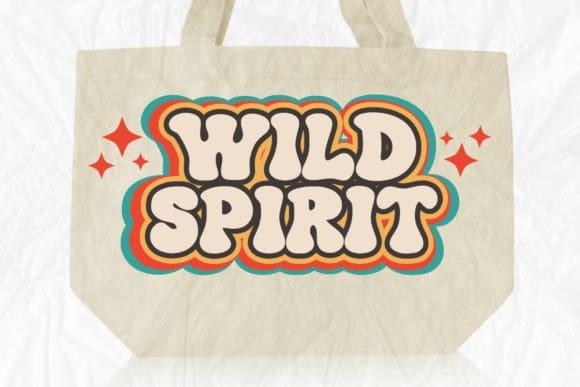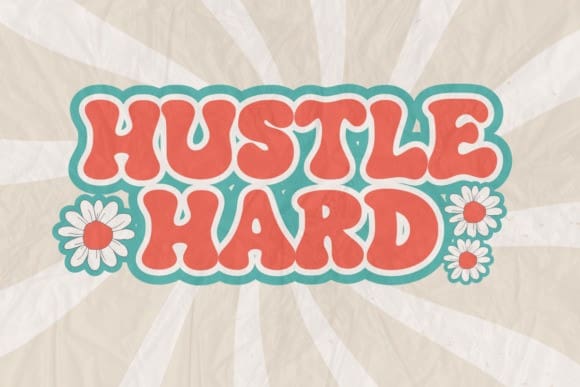
Fungky Grunge Font
Fungky Grunge Font is a playful and cute font, perfect for designs that need a cheerful touch. FungkyGrunge is suitable for book covers, posters, packaging, merchandise, logotypes, and many more!